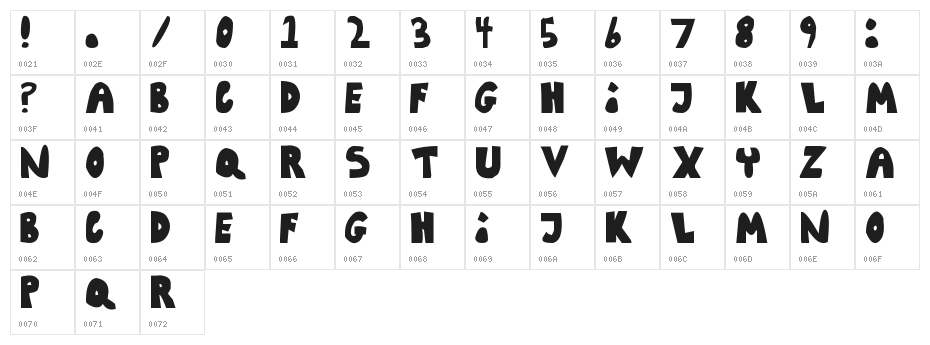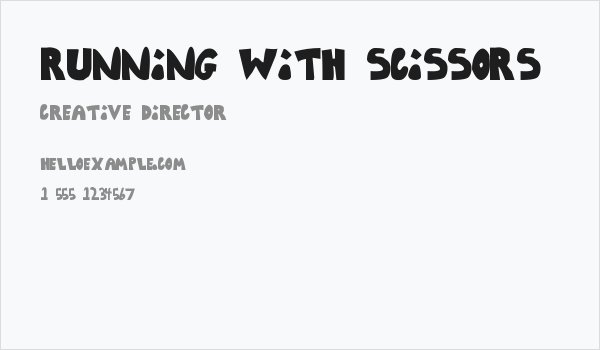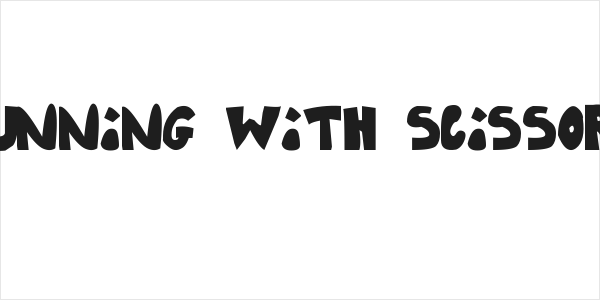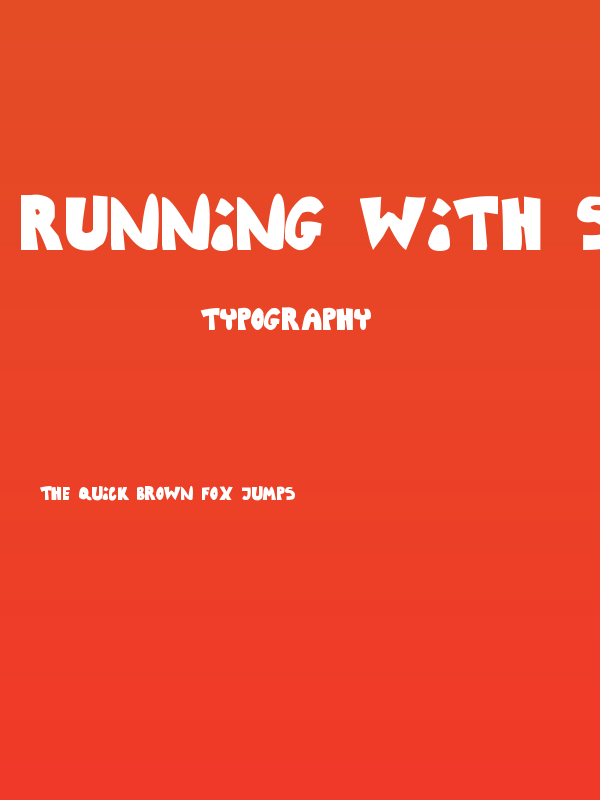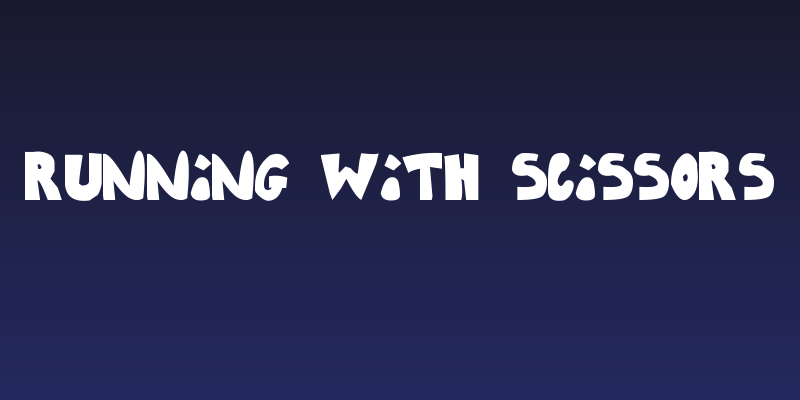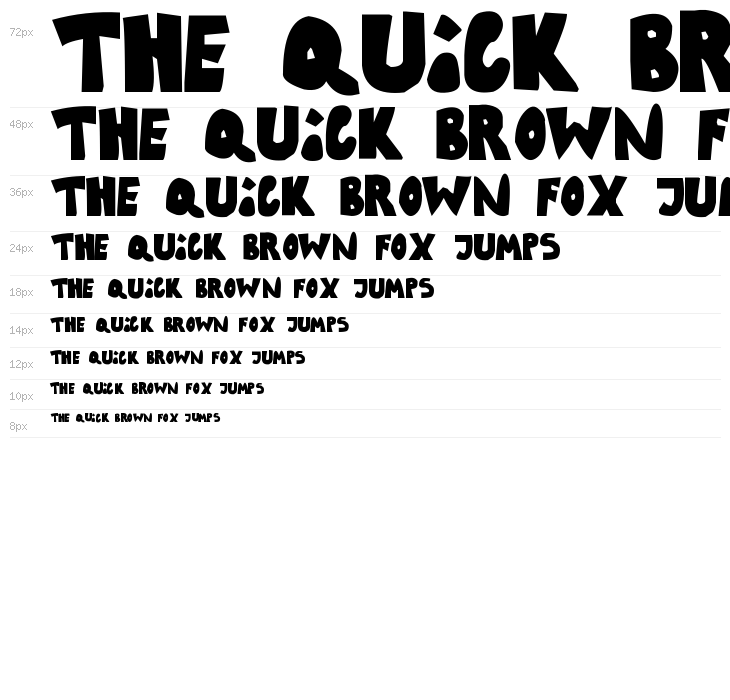
Running With Scissors Font
Running With Scissors Description
This playful and bold font features a quirky, hand-cut appearance with irregular shapes and varying stroke widths. The characters are chunky and have a whimsical, almost childlike quality, making them stand out with their unique, uneven edges. The uppercase and lowercase letters maintain a consistent style, while the numbers and special characters add to the font's playful nature. The overall design is informal and artistic, perfect for capturing attention with its distinctive, fun-loving vibe.